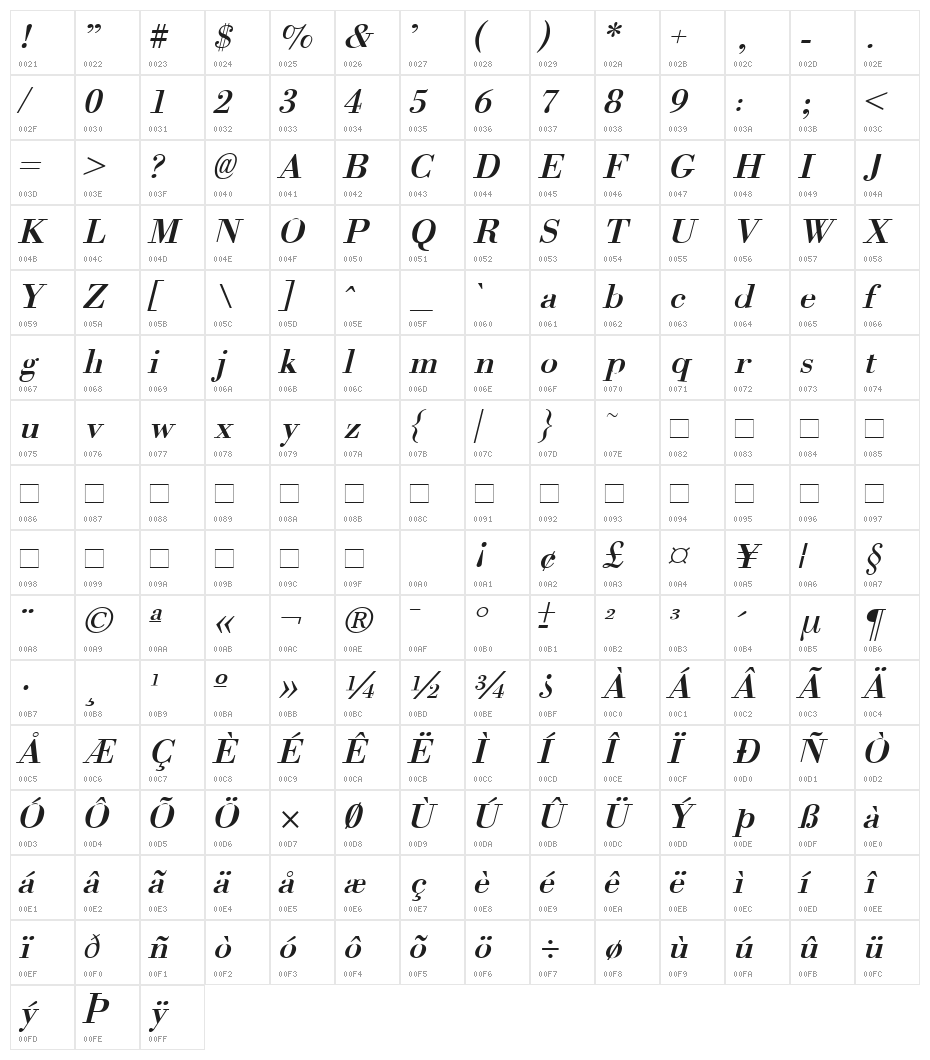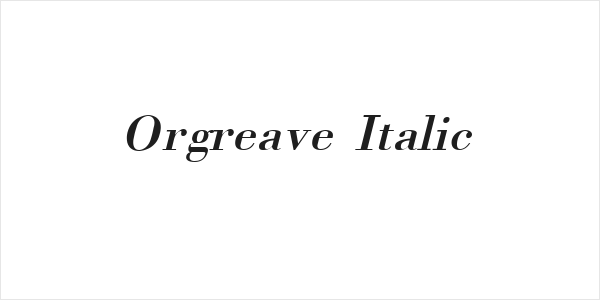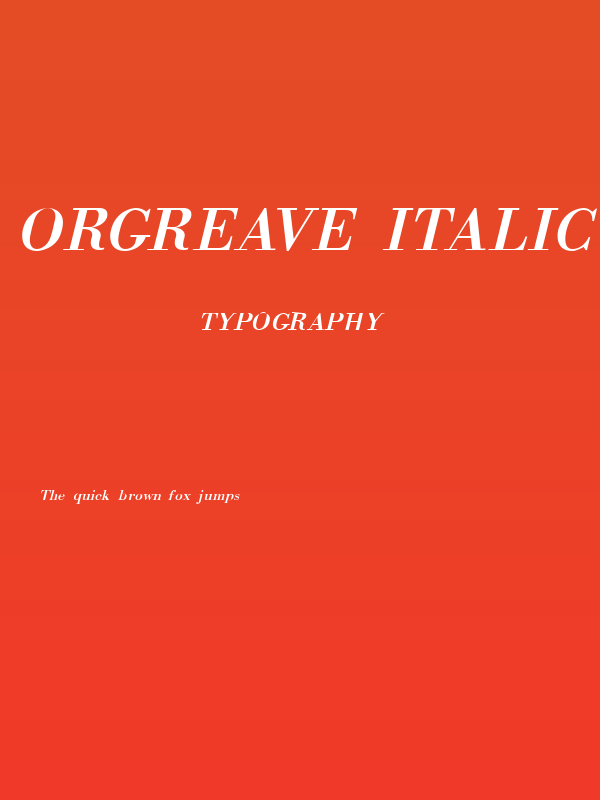
Orgreave Italic Font
Orgreave Italic Description
This font features a classic serif design with a distinct italic style, characterized by its elegant and flowing letterforms. The serifs are pronounced, adding a touch of sophistication and readability. The italic slant gives it a dynamic and graceful appearance, making it suitable for formal and elegant applications. The uppercase letters are bold and commanding, while the lowercase letters maintain a consistent flow, enhancing the overall aesthetic. The numerals are well-proportioned, and the special characters are designed to complement the letterforms seamlessly.
| Proposed Projects | Ideal for use in editorial design, book covers, formal invitations, and branding projects that require a touch of elegance and sophistication. |